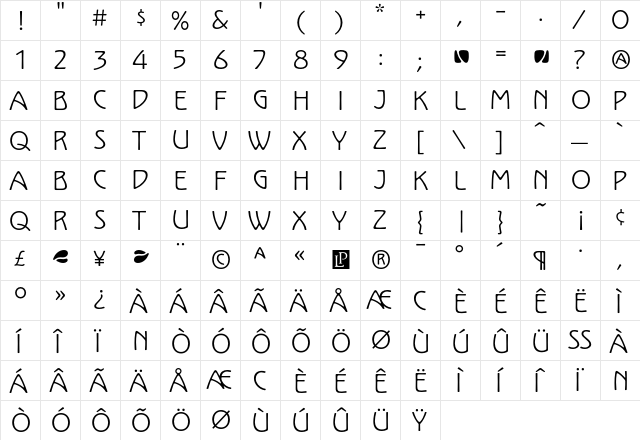
KoloRegular Regular
Design Context for KoloRegular Typeface
KoloRegular offers clean, dependable letterforms without strong stylistic allegiance, making it a practical choice for designers who need flexibility.